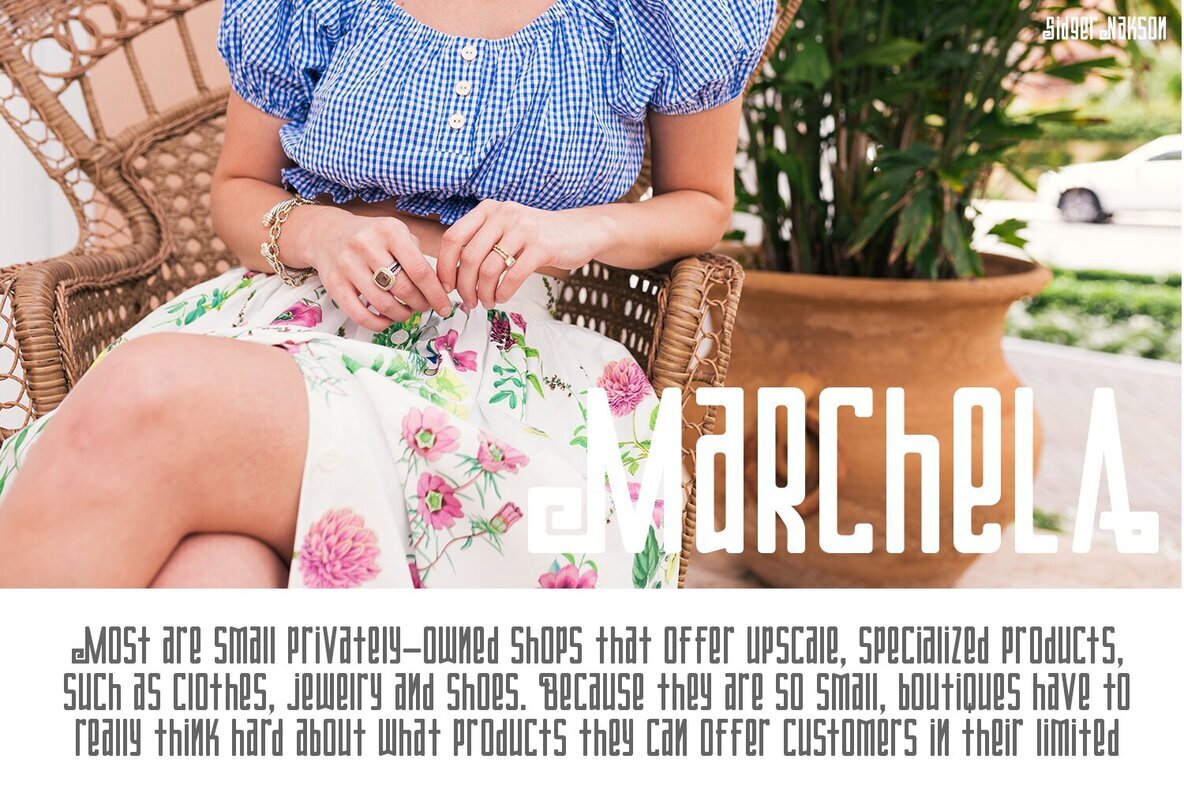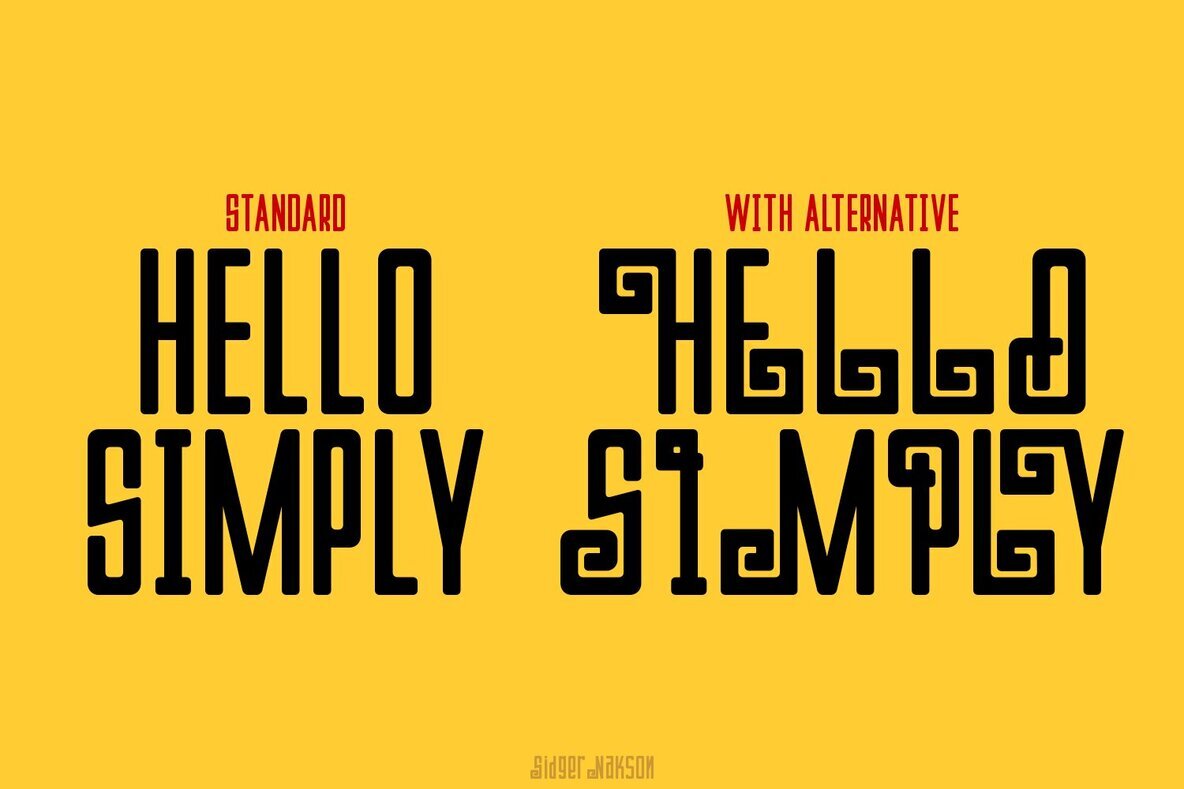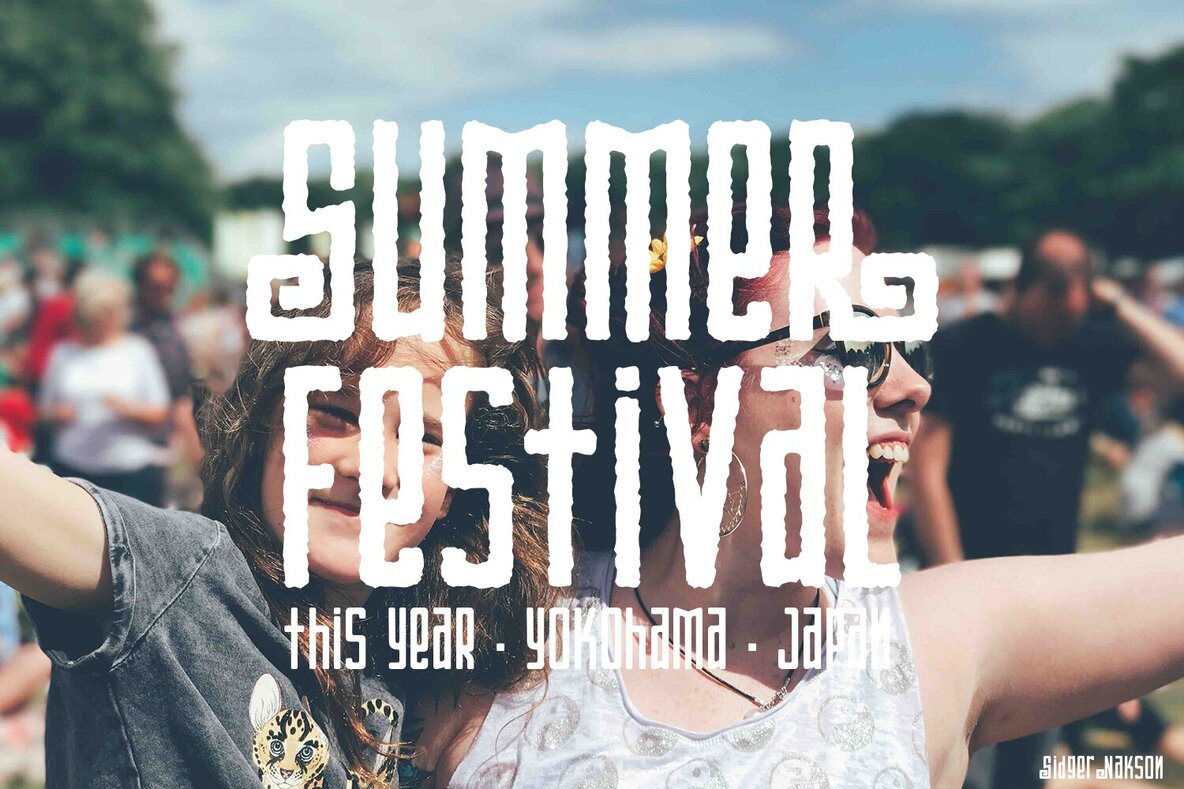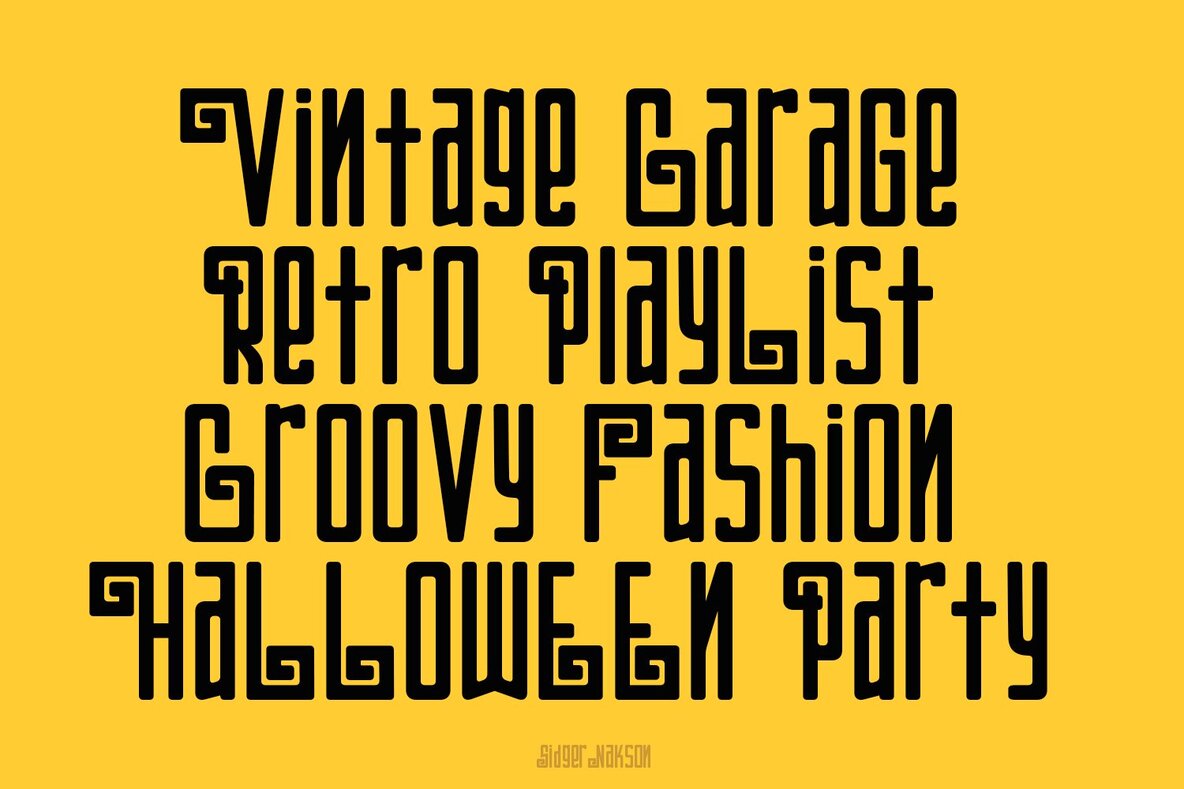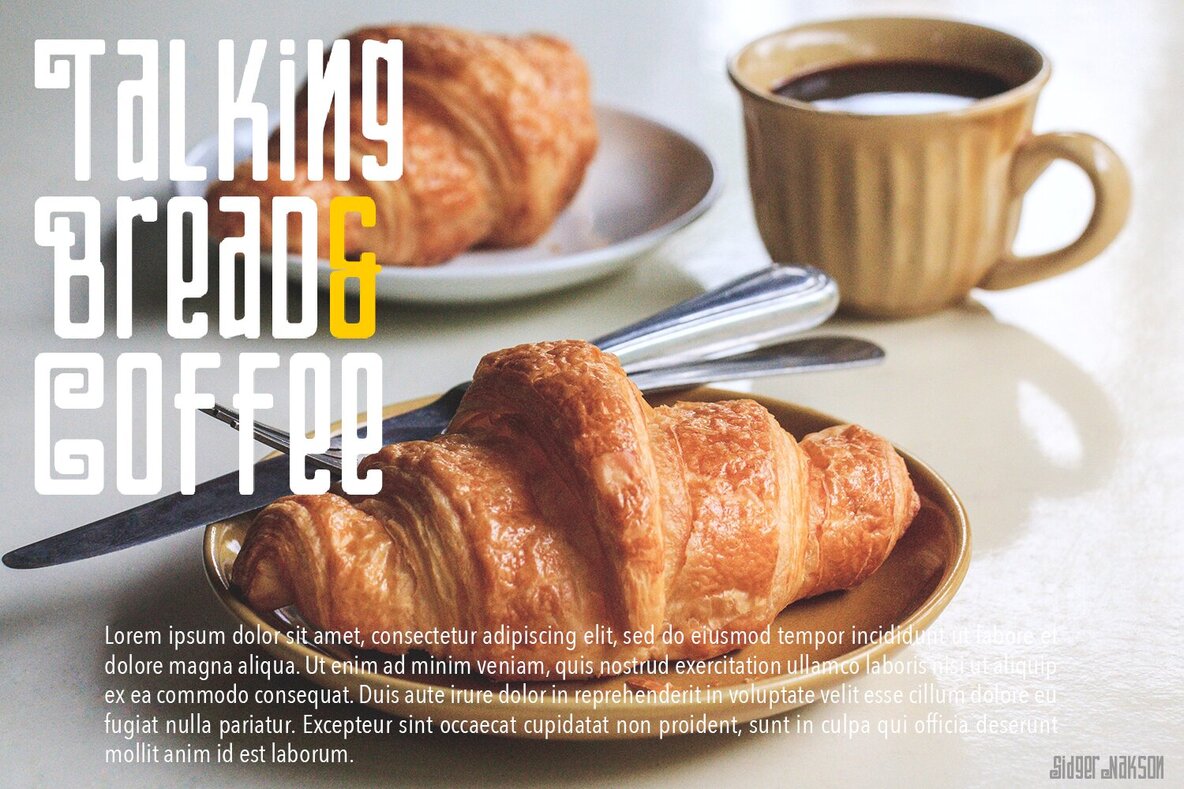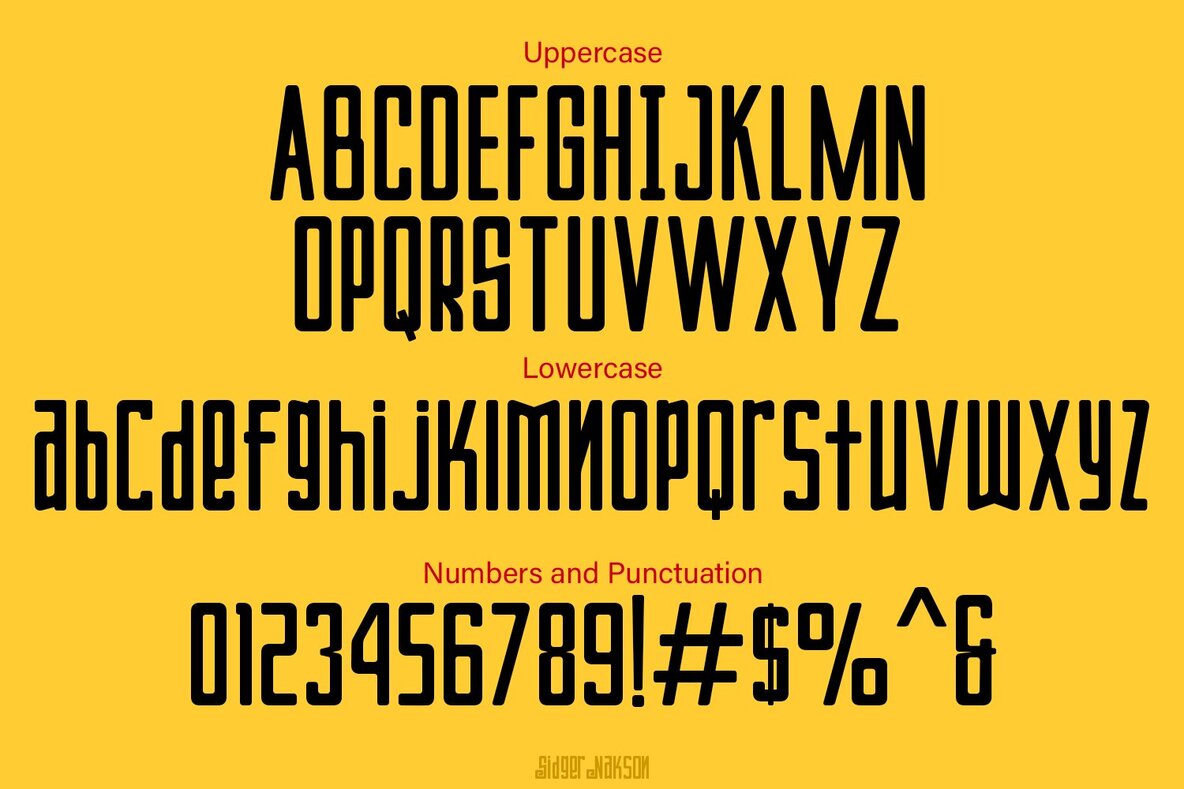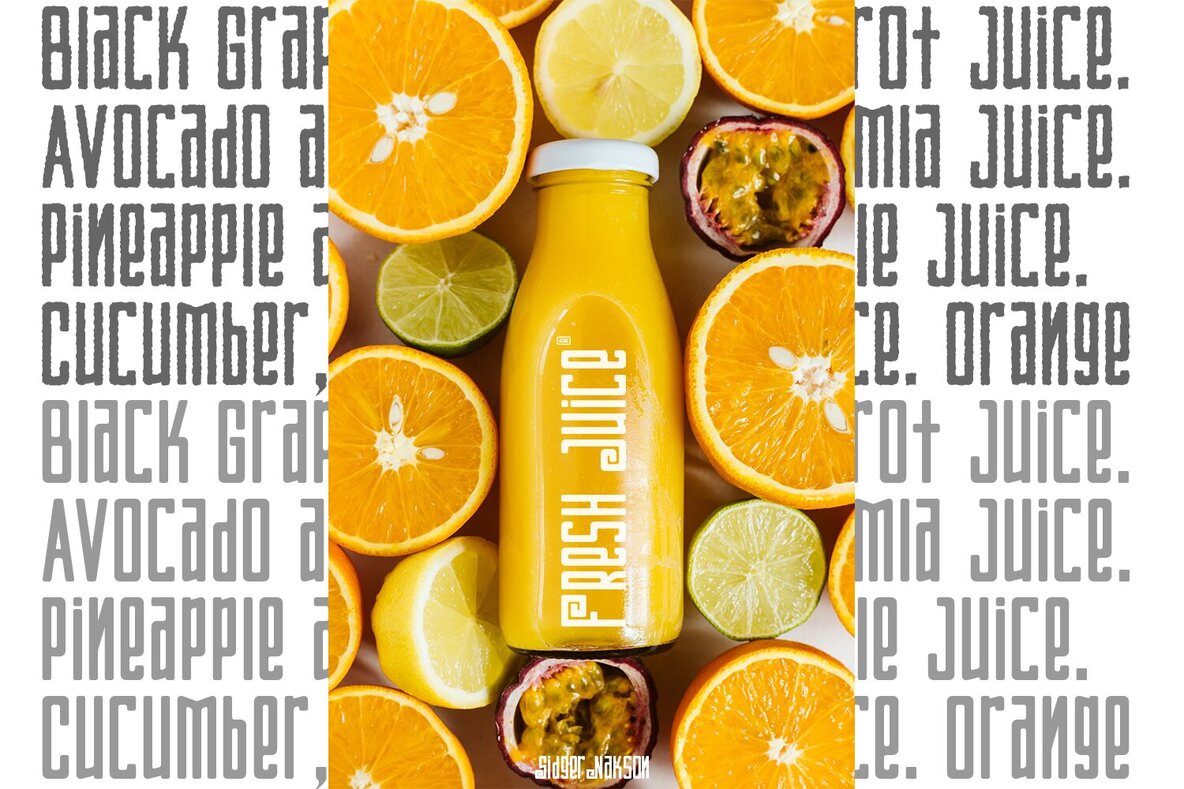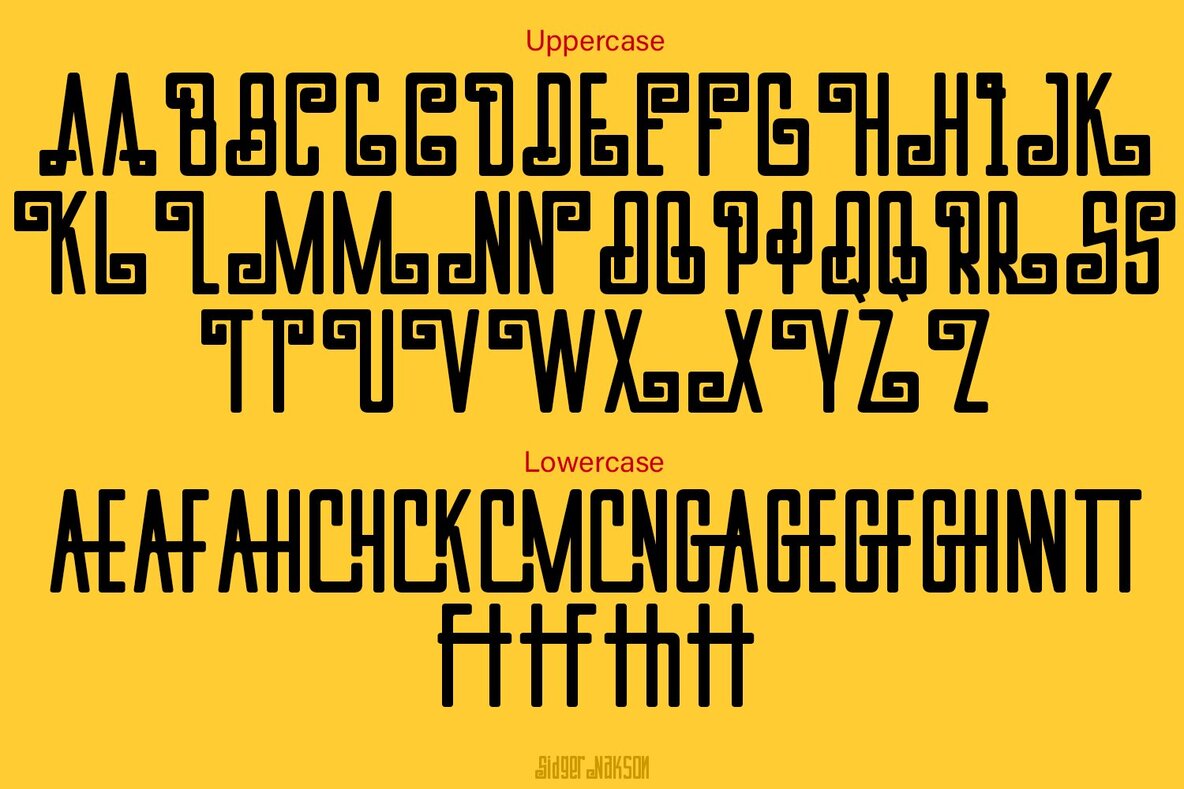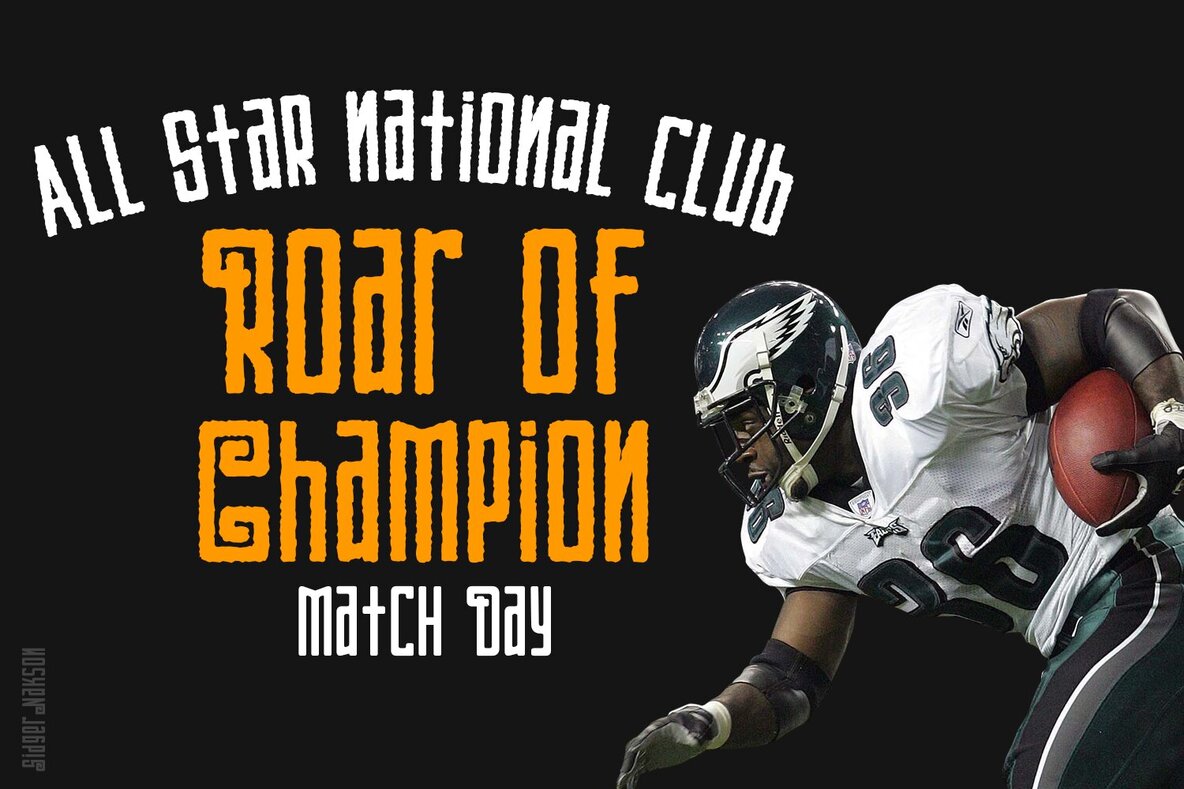
Sidger Nakson Font
expand_font Sidger Nakson Font Discover the mesmerizing world of Sidger Nakson, an abstract font design masterpiece meticulously crafted by madeDeduk. Curly,Geometric,Tall,Retro,Abstract Explore Exceptional Fonts for Digital and Traditional Media Fontpath offers a large variety of fonts for every designer, all at affordable prices and in multiple formats. Browse our best in class fonts today for all your creative needs, you can find everything you need right here at our site! Fonts,sans,sans serif,retro,script,decorative,title,FontPath 20140312040223 Fontpath offers 200,000+ of the most professional fonts found online, start downloading today! Real-Time Font Discovery at Fontpath
Sidger Nakson is a abstract font design published by madeDeduk.